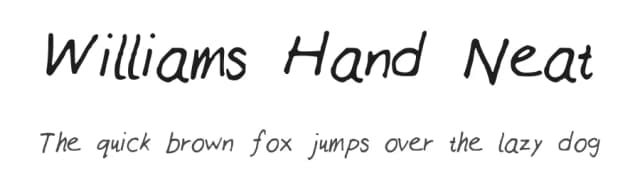
About Williams Hand Font
Williams Hand Font is a script font that shines as a display or heading face. Pair it with a clean sans-serif or serif font for body text β the contrast creates a clear hierarchy while the two styles stay balanced and easy to read.
Williams Hand Font
by Meaghan Wong